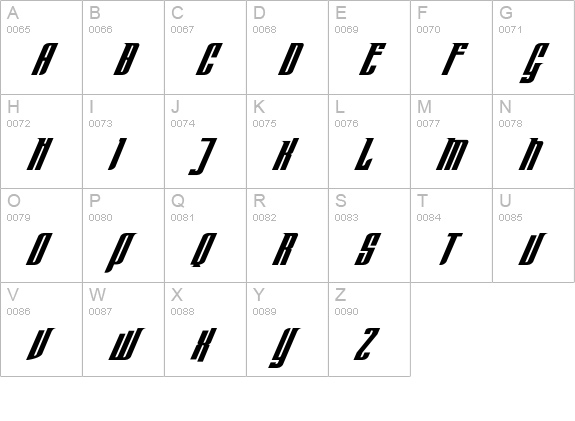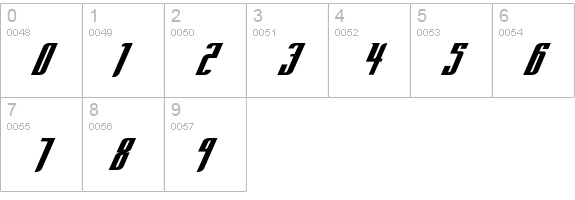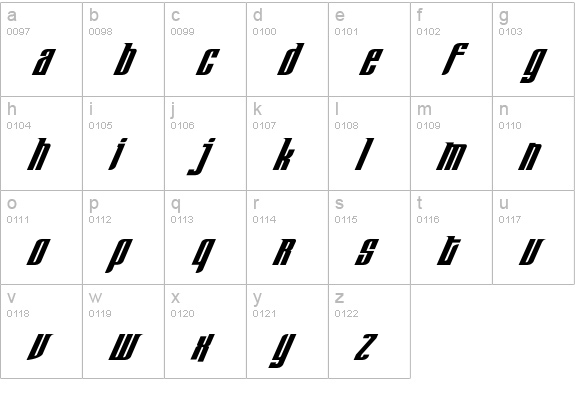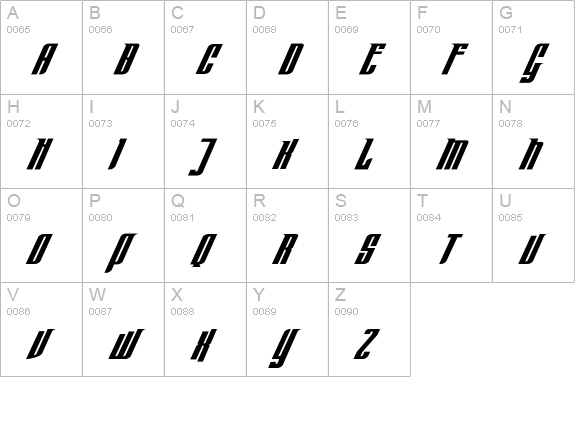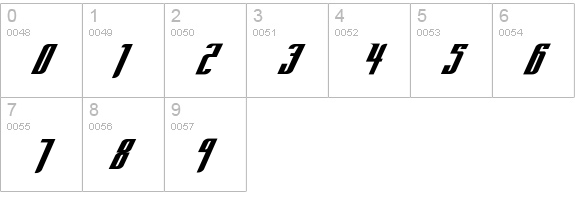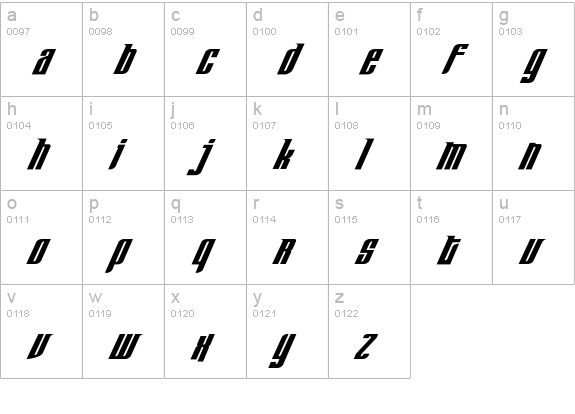
Blahaus font is a modern and stylish typeface that exudes sophistication and elegance. With its sleek lines and contemporary design, this font is perfect for adding a touch of class to any project. Whether you're creating a logo, designing a website, or crafting a poster, Blahaus font will make your text stand out. The best part? Blahaus font is completely free to use! You can download it for free at FontsMarket.com and start using it in your projects right away. Say goodbye to expensive fonts and hello to high-quality design with Blahaus font. Elevate your work with this beautiful and versatile typeface that is sure to impress.